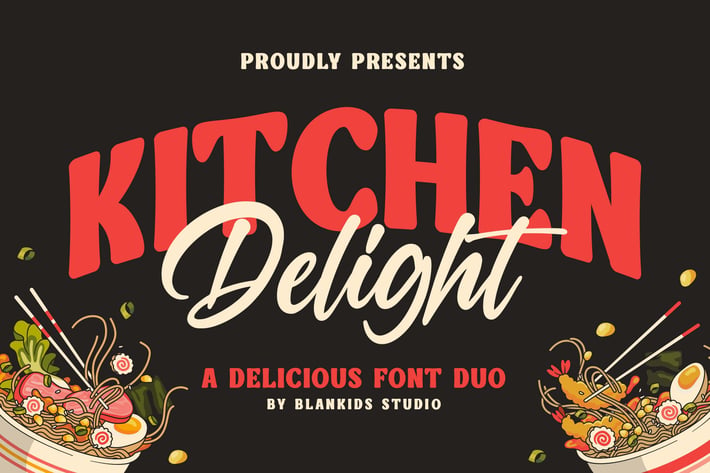
Kitchen Delight a Delicious Font Duo
Hello, awesome people! This time, we have a new font called Kitchen Delight a delicious font duo by Blankids Studio.
Kitchen Delight a delicious font duo is made for any professional project branding, such as logotype, watermarks, poster, branding, promotions, product packaging, etc. Every letter has a food design theme. This font comes in 2 font combination.
Kitchen Delight font includes a full set of food theme uppercase and lowercase letters, numerals and punctuation. This font has a retro sporty style. See the previews above to get some inspiration on how to use them. Happy designing!